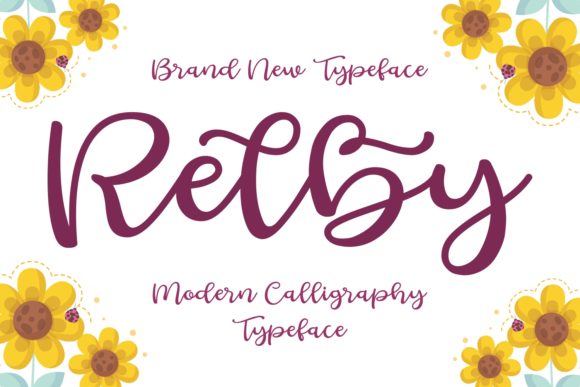
Unleash Your Creativity with Relby: The Ultimate Script Font for Craft Signs
In a world where uniqueness and self-expression reign supreme, Relby emerges as a captivating script font, ready to transform your craft signs into masterpieces. With its elegant curves, free-flowing strokes, and charming personality, Relby is the perfect companion for artisans, crafters, and designers seeking to elevate their creations.
Relby's allure lies in its versatility, effortlessly adapting to a multitude of projects, from heartfelt handmade cards and personalized gifts to eye-catching signage that commands attention. Its smooth, flowing style adds a touch of sophistication and elegance, while maintaining a playful charm that resonates with audiences of all ages.
Imagine transforming ordinary wooden signs into works of art, each letter meticulously crafted to reflect your unique style. Relby's graceful lines dance across the surface, inviting customers to linger and admire the intricate details. Craft signs adorned with Relby's enchanting characters become more than mere decorations; they become cherished keepsakes that tell stories and evoke emotions.
Step into a world where creativity knows no bounds, where your craft signs become canvases for artistic expression. With Relby's intuitive design, your ideas flow effortlessly onto the screen, transforming into stunning visual masterpieces. Each stroke, each curve, each letter is a testament to your artistry, a reflection of your passion for creating something truly exceptional.
But Relby's magic extends beyond its aesthetic appeal. This remarkable font empowers you to connect with your customers on a deeper level. Its warm, inviting strokes create a sense of intimacy, drawing people into your handcrafted creations. Whether it's a heartfelt message on a greeting card or an inspiring quote on a wall hanging, Relby's ability to convey emotions is unparalleled.
In the realm of craft signs, Relby reigns supreme, a font that elevates your designs to the highest level. Its versatility, charm, and emotional resonance make it the perfect choice for artisans seeking to captivate and inspire. Embrace the power of Relby and watch as your craft signs blossom into works of art, leaving an indelible mark on the hearts of those who behold them.